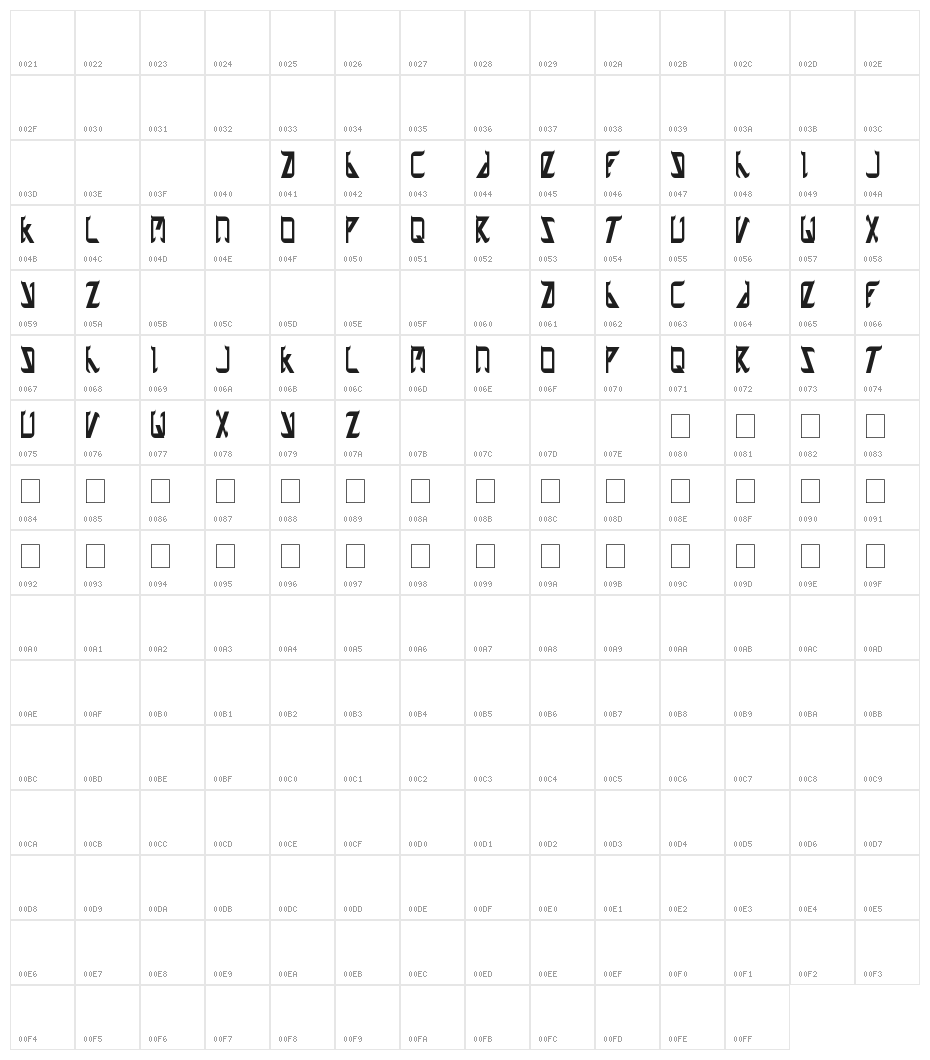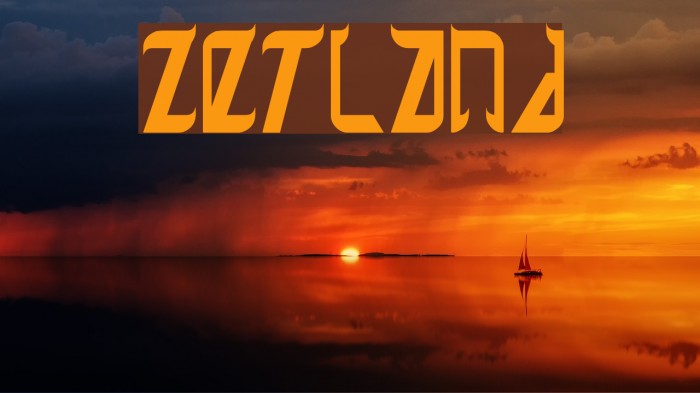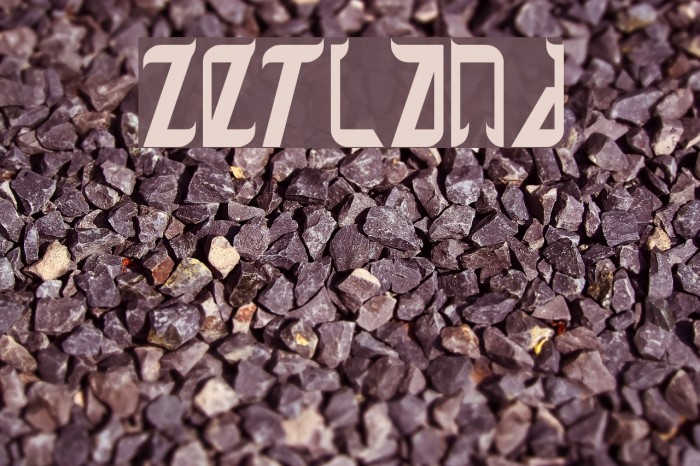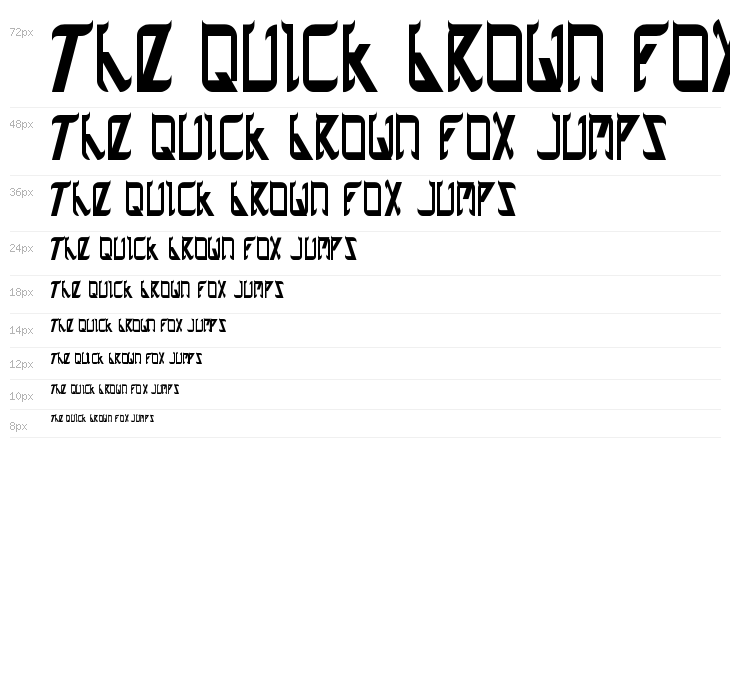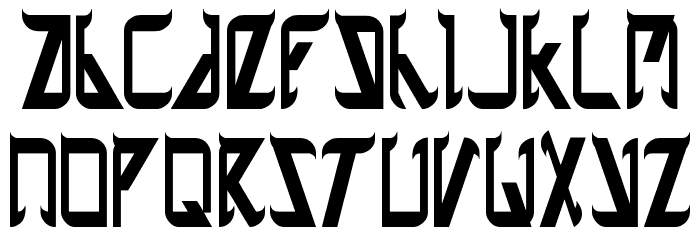
zetland Font
zetland Description
This font features a bold, angular design with sharp edges and a futuristic aesthetic. The characters are constructed with a unique blend of geometric shapes and pointed serifs, giving them a distinct and aggressive appearance. The uppercase letters are particularly striking, with exaggerated angles and a sense of movement. The overall style is reminiscent of sci-fi or cyberpunk themes, making it ideal for projects that require a modern and edgy look. The font's boldness and high contrast make it stand out, ensuring readability even at smaller sizes.
ZETLAND UPPERCASE
ZETLAND LOWERCASE
ZETLAND OTHER CHARS
| Overall Style | Futuristic, Edgy |
| Proposed Projects | Ideal for sci-fi book covers, video game titles, movie posters, and branding for tech companies. |